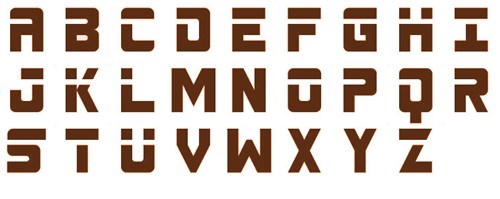
Unicorn Creatives is happy to present Robotic Font Embrilliance - Unique Robotic Style Alphabet - BX font machine embroidery font which has Robotic machine embroidery font designed with geometric letter shapes, perfect for modern projects on bags and jackets. Available in BX font and other Embrilliance formats. included. If you would like to view more embroidery fonts and alphabets please search our embroidery fonts page.